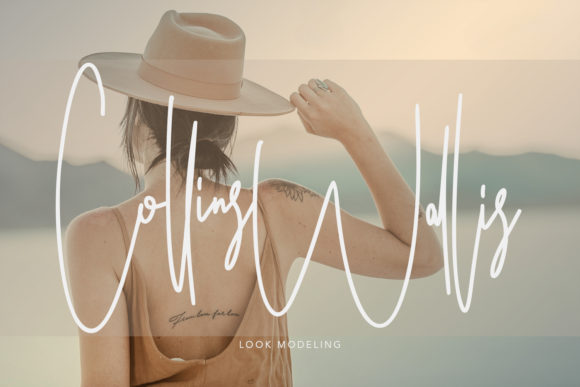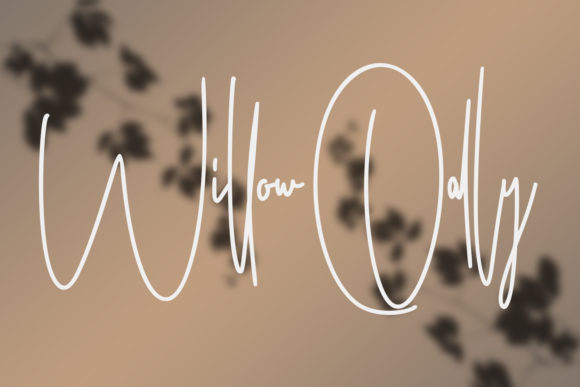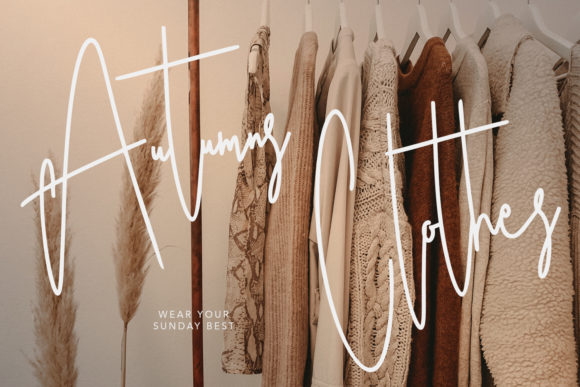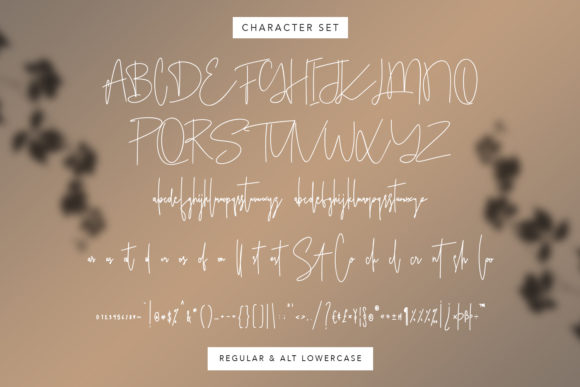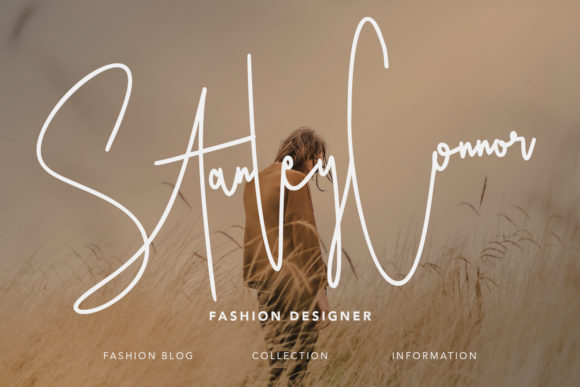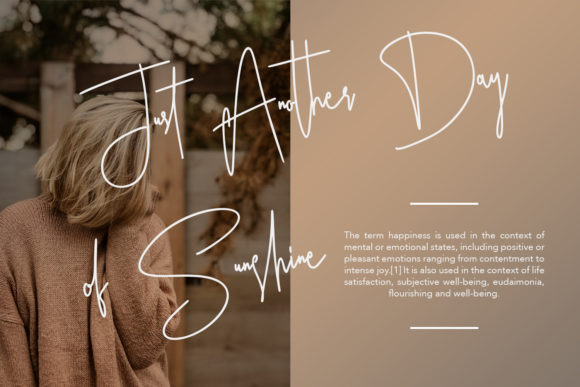
Introducing Ameriondela Font: The Epitome of Elegance and Sophistication
Are you on the hunt for a font that exudes luxury, elegance, and refinement? Look no further than Ameriondela, a stunning script font that is sure to capture your heart. With its delicate and thin strokes, Ameriondela is the perfect choice for designers and crafters seeking to add a touch of sophistication to their creations.
The Characteristics of Ameriondela Font
Ameriondela is a thin, delicate, and luxurious script font that boasts a unique and captivating charm. Its slender strokes and elegant curves make it an ideal choice for a wide range of design projects, from wedding invitations and stationary art to social media posts and more.
One of the standout features of Ameriondela is its versatility. This font can be used to create a variety of designs, from classic and traditional to modern and trendy. Whether you’re looking to create a beautiful wedding invitation or a stunning piece of artwork, Ameriondela is the perfect choice.
Uses of Ameriondela Font
Ameriondela is a highly versatile font that can be used in a multitude of design projects. Here are just a few ideas to get you started:
- Wedding Invitations: Create beautiful and elegant wedding invitations that will leave a lasting impression on your guests. Ameriondela’s delicate strokes and luxurious feel make it the perfect choice for wedding designs.
- Stationary Art: Add a touch of sophistication to your stationary art with Ameriondela. This font is perfect for creating stunning letterheads, business cards, and more.
- Social Media Posts: Make your social media posts stand out with Ameriondela. This font is perfect for creating eye-catching graphics and quotes that will grab the attention of your followers.
- Branding: Use Ameriondela to create a luxurious and sophisticated brand identity. This font is perfect for high-end brands seeking to convey a sense of elegance and refinement.
Why Choose Ameriondela Font?
So, why choose Ameriondela over other fonts? Here are just a few reasons why Ameriondela stands out from the crowd:
- Unique and Elegant: Ameriondela boasts a unique and elegant design that is sure to capture your heart.
- Highly Versatile: This font can be used in a wide range of design projects, from wedding invitations to social media posts.
- Easy to Read: Despite its delicate strokes, Ameriondela is highly legible and easy to read.
- Luxurious Feel: Ameriondela exudes a sense of luxury and sophistication, making it perfect for high-end brands and designers.
Tips for Using Ameriondela Font
Here are a few tips for using Ameriondela to get the most out of this stunning font:
- Pair with Bold Fonts: Pair Ameriondela with bold fonts to create a striking contrast that will make your designs stand out.
- Use on Light Backgrounds: Ameriondela looks best on light backgrounds, so be sure to choose a background that will showcase this font’s delicate strokes.
- Experiment with Colors: Don’t be afraid to experiment with different colors to find the perfect combination that will make your designs pop.
In conclusion, Ameriondela is a stunning script font that is sure to capture your heart. With its delicate and thin strokes, luxurious feel, and high versatility, Ameriondela is the perfect choice for designers and crafters seeking to add a touch of sophistication to their creations. Whether you’re looking to create beautiful wedding invitations, stunning stationary art, or eye-catching social media posts, Ameriondela is the perfect choice. So why wait? Fall in love with Ameriondela today and take your designs to the next level!